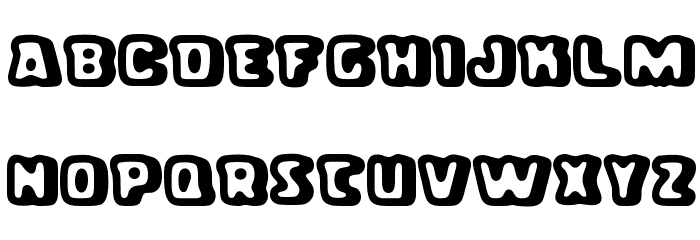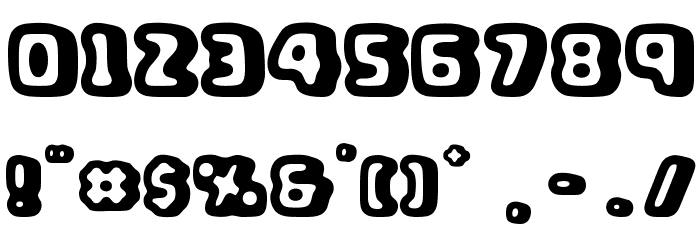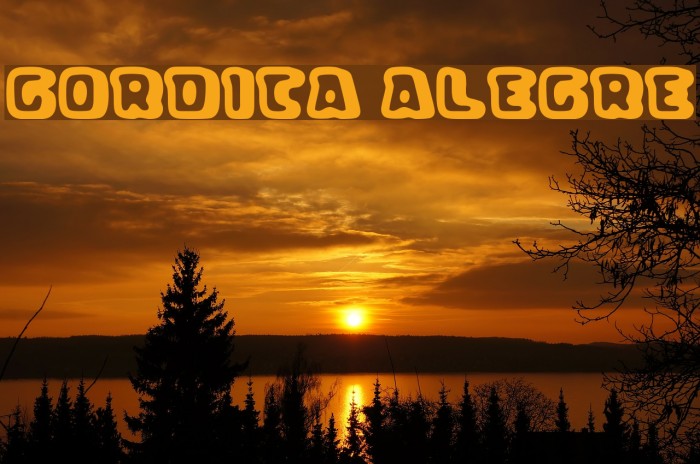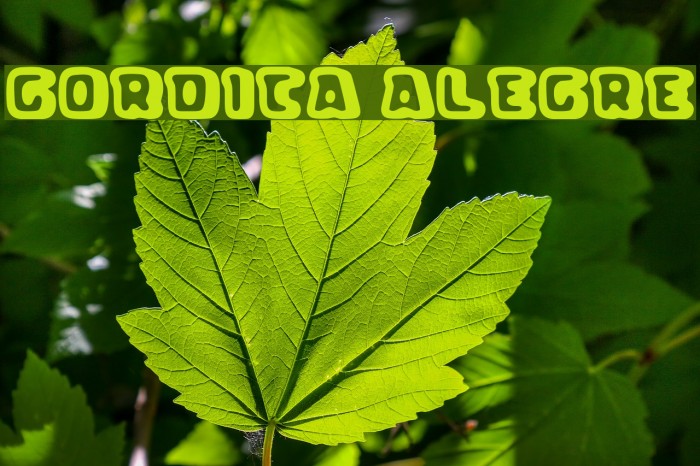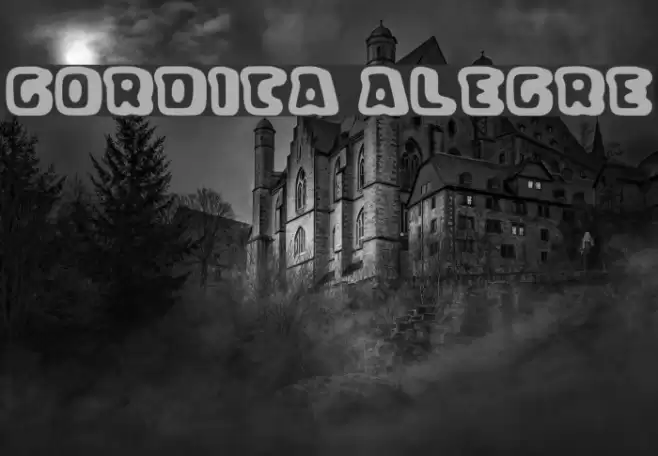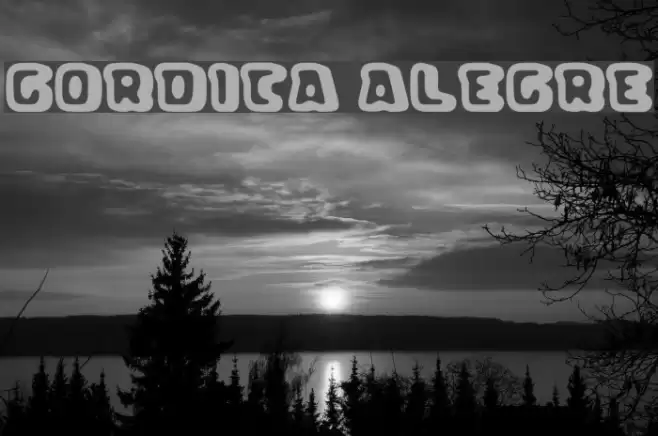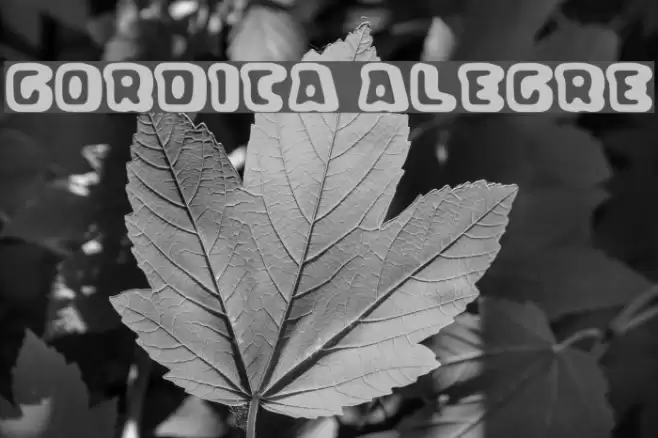
Gordita Alegre Font
This playful and bold font features rounded, bubbly characters that exude a sense of fun and whimsy. The letters are thick and have a consistent stroke width, creating a uniform appearance. The rounded edges and soft curves give it a friendly and approachable feel, making it ideal for designs that aim to be inviting and cheerful. The font includes both uppercase and lowercase letters, as well as numbers and a selection of special characters. Its boldness ensures high visibility, making it suitable for eye-catching headlines and playful branding.
A bold, rounded font with a playful and whimsical style.
- Proposed Projects: Ideal for children's books, playful branding, party invitations, and eye-catching headlines.
- Overall Style: Playful